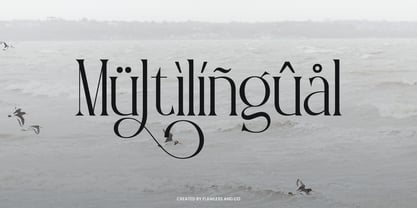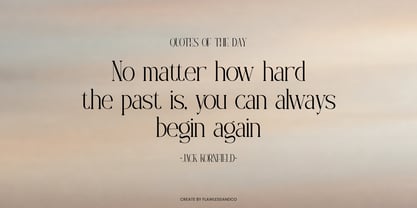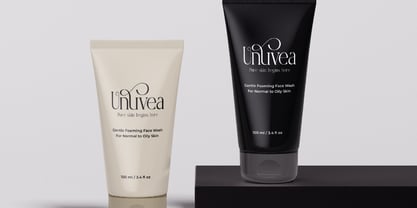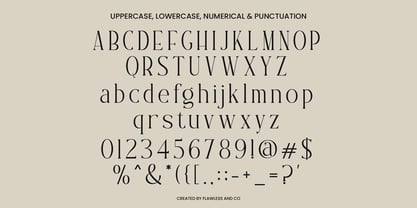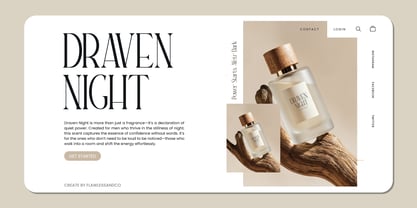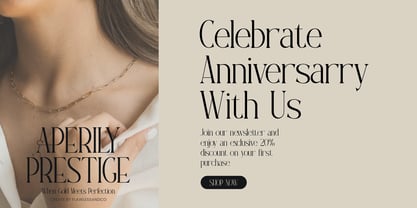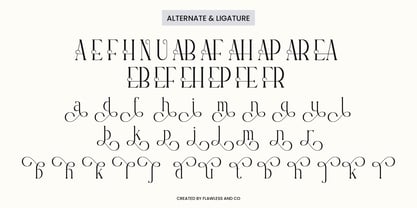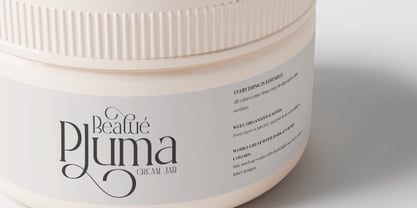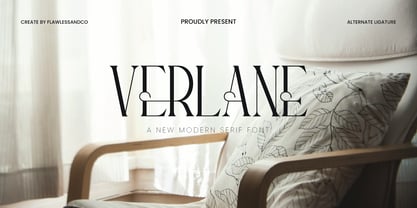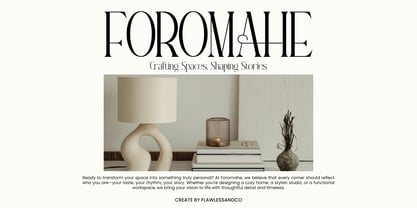
Verlane
Verlane is a classic-modern serif typeface that blends vintage elegance with contemporary simplicity. Designed with meticulous attention to detail, Verlane features soft yet confident serifs, balanced proportions, and graceful curves, making it an ideal choice for designs that demand sophistication and high-end appeal. This typeface strikes the perfect harmony between traditional charm and modern refinement.
Features :
Multilingual, Uppercase alphabet A-Z, Lowercase alphabet a-z, Numbers 0-9, Some punctuation, Alternates & Ligatures